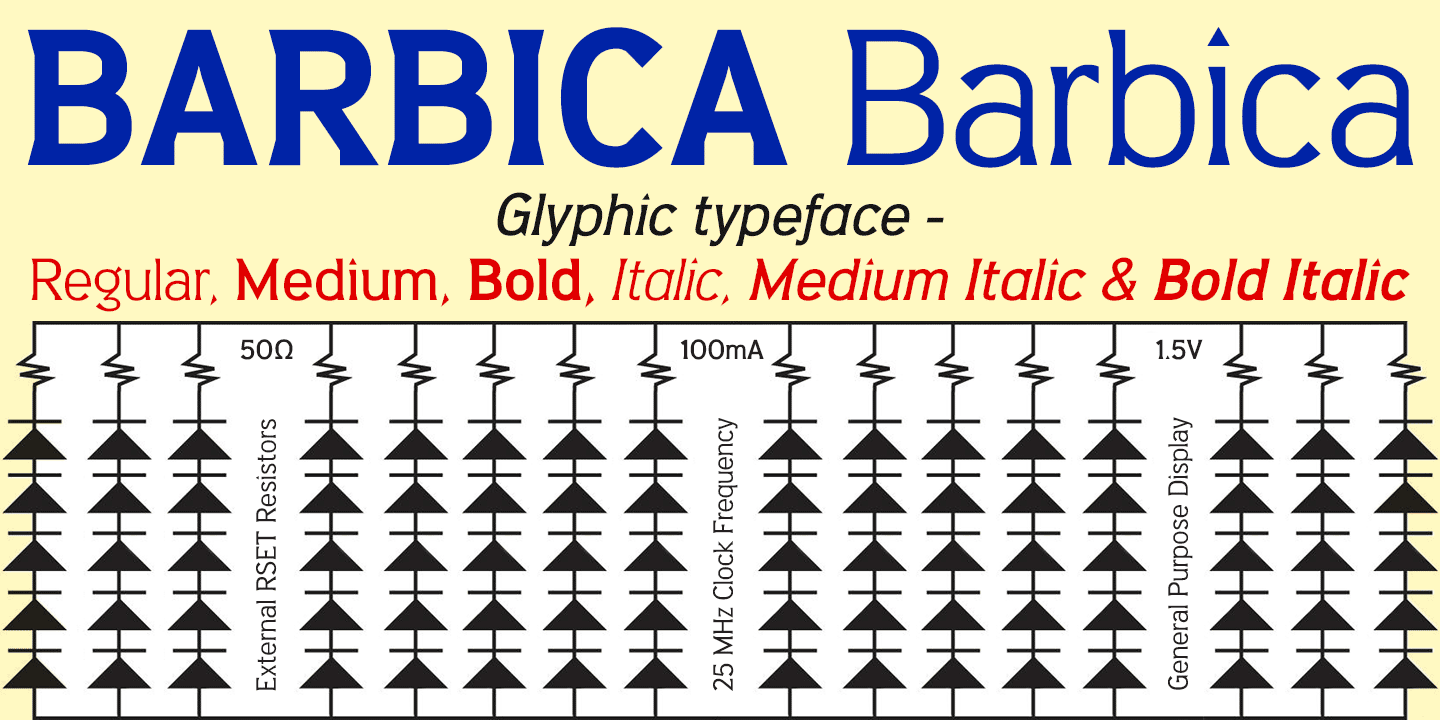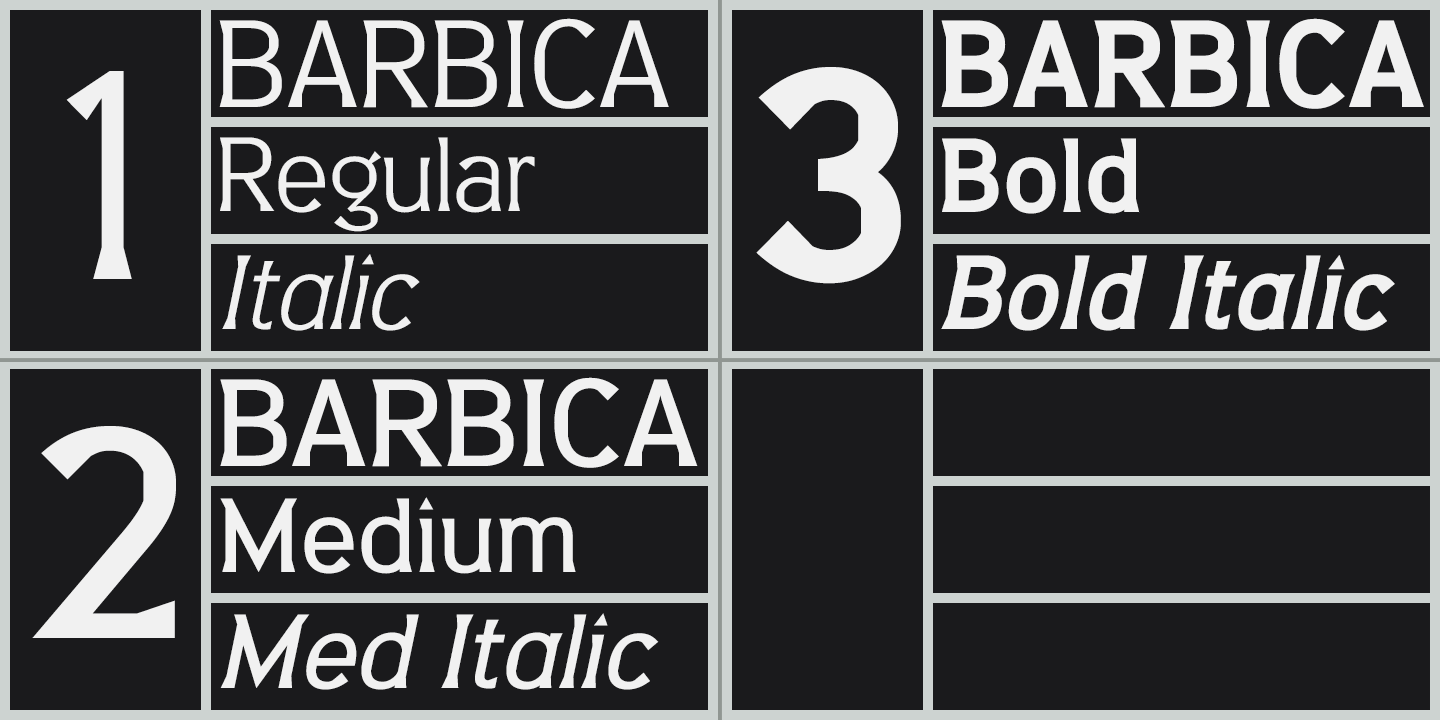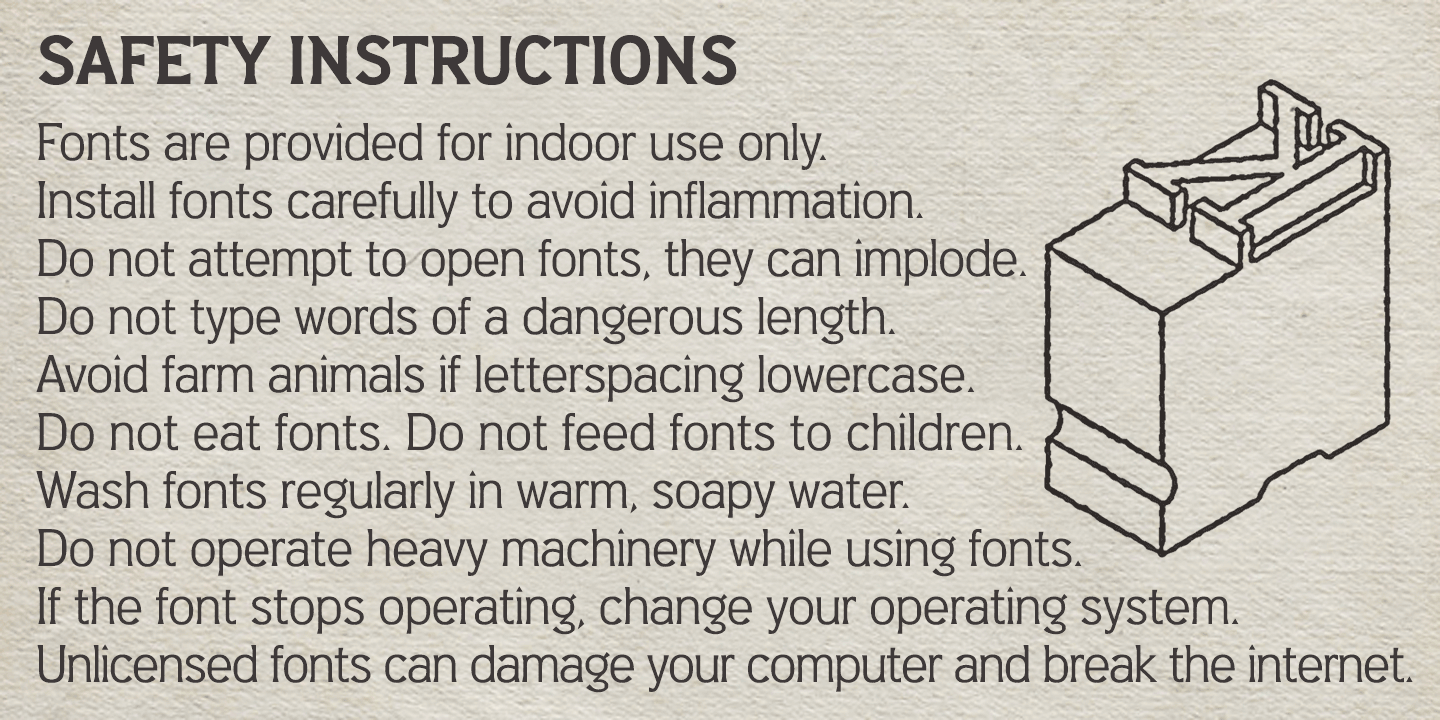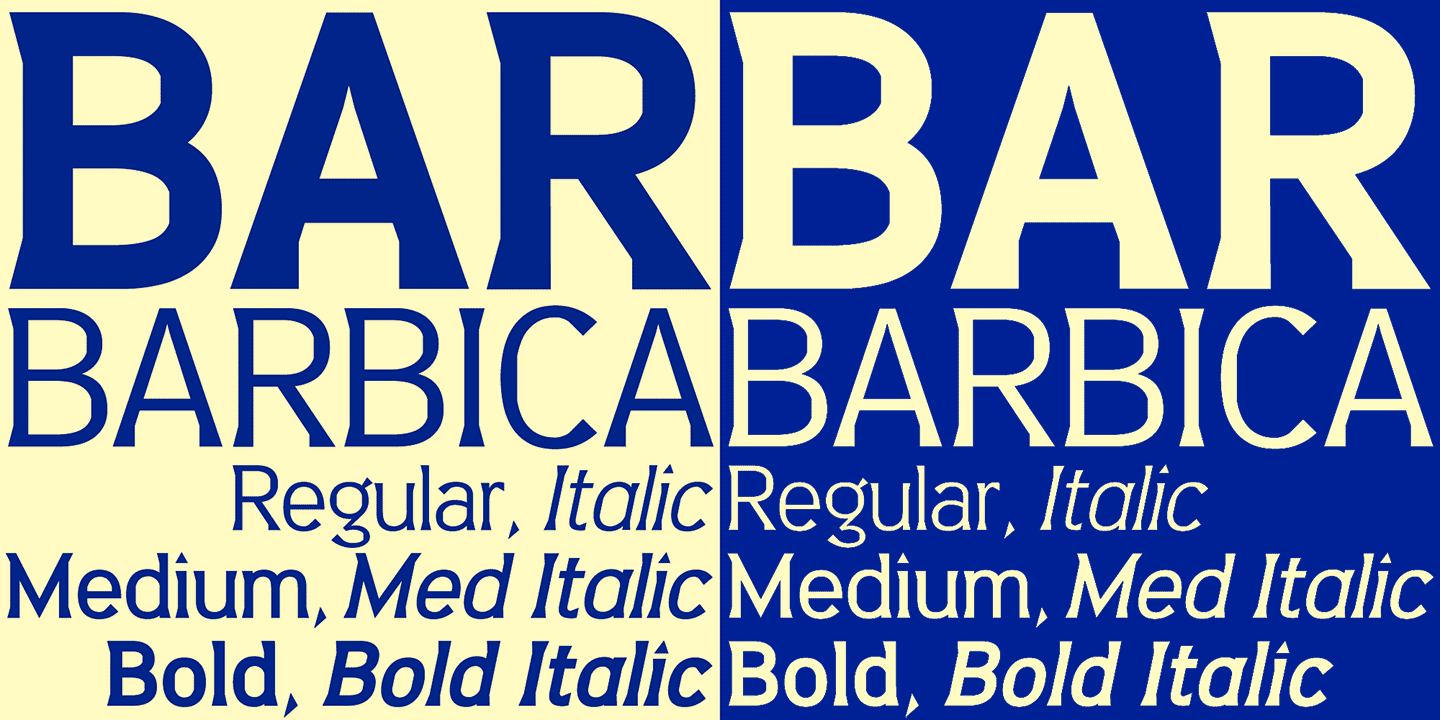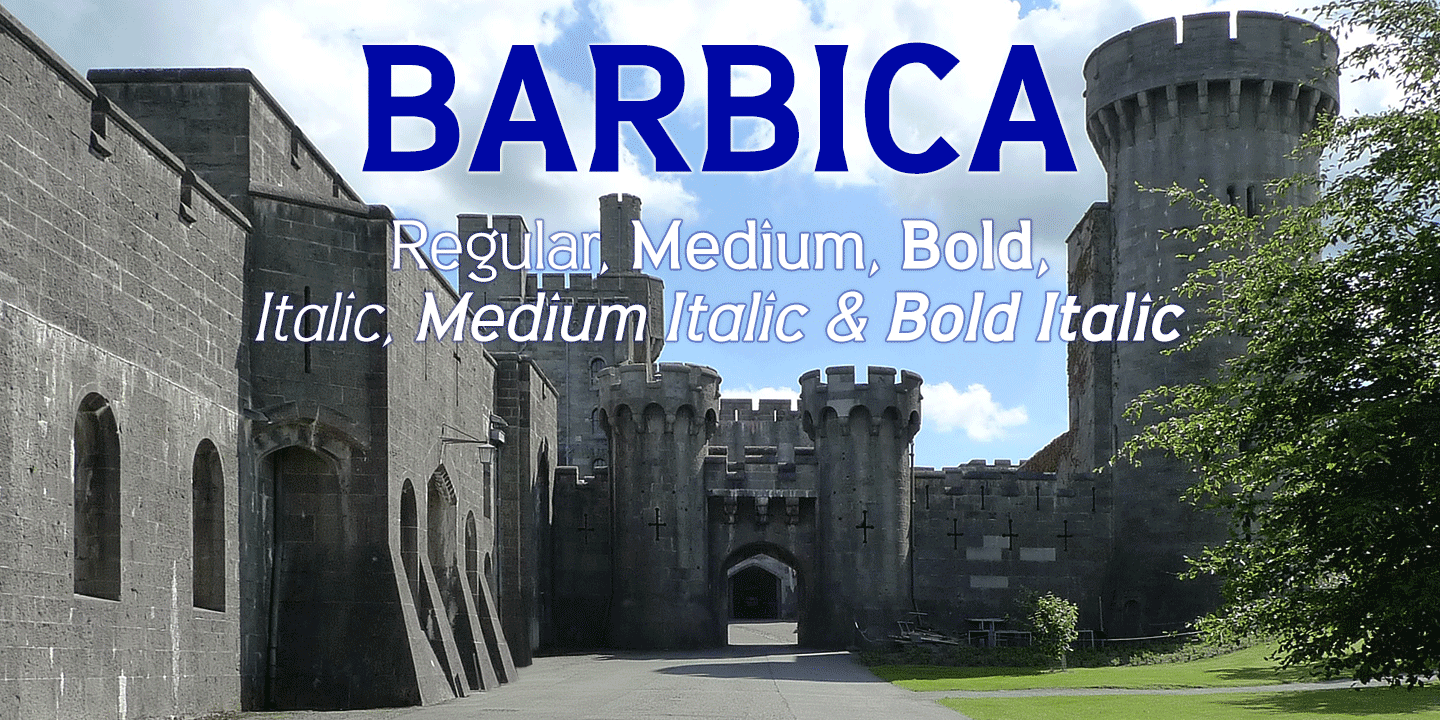
About Barbica
Barbica is a glyphic typeface with the clean feel of a sans. Angular flared terminals and vertical struts provide stroke contrast and definition without being overly obtrusive. Paradoxically, the typeface looks both contemporary and archaic. The download…